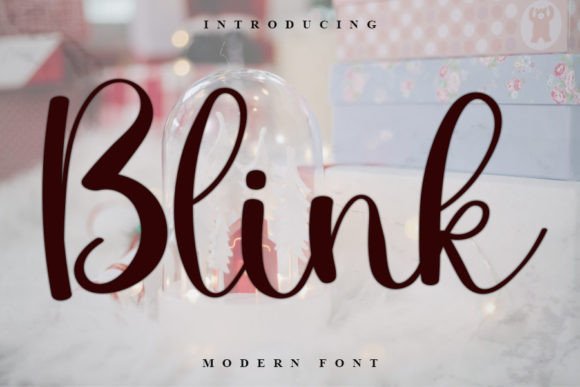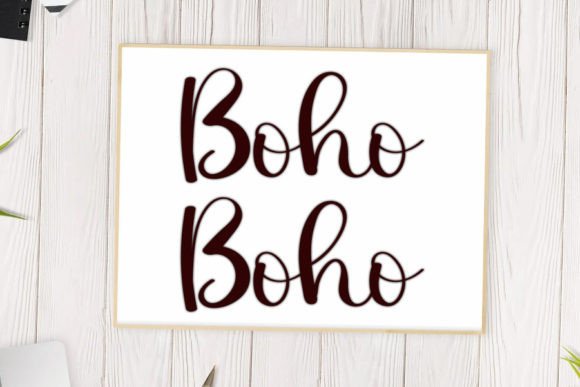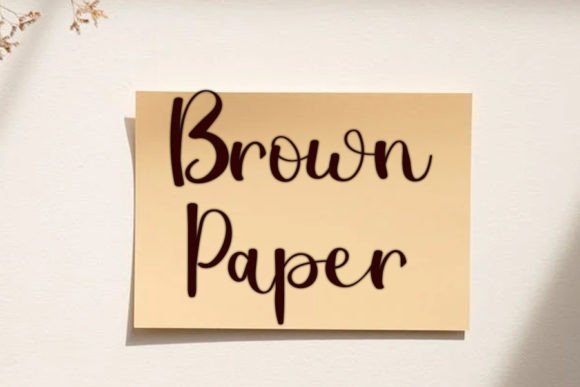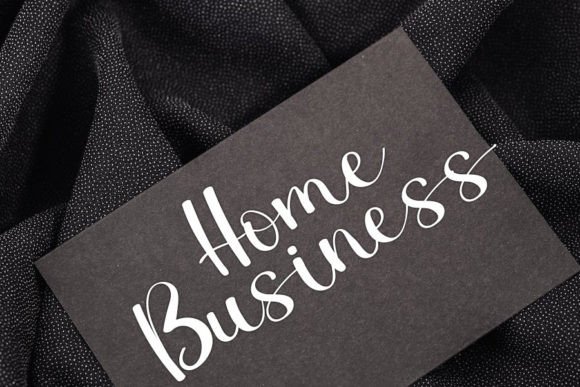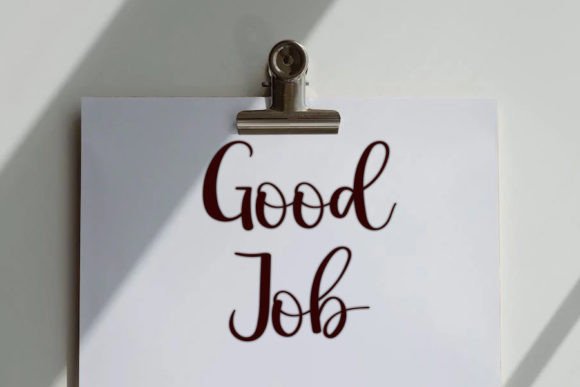
Blink Font
About Blink Font
A Charming and Elegant Handwritten Font
The Blink Font is a charming and elegant handwritten typeface that brings sophistication and warmth to any design. Its delicate strokes and graceful curves make it perfect for a variety of creative projects. Whether you’re designing wedding invitations, greeting cards, logos, or business cards, the Blink Font adds a personal touch, making your work stand out with timeless appeal.
Perfect for Wedding Invitations and Special Occasions
If you’re working on wedding invitations or any other special event stationery, the Blink Font is an excellent choice. Its graceful, handwritten design adds a personalized and elegant touch to your invitations, making them feel extra special. Whether for a wedding, anniversary, birthday, or other significant celebration, this font ensures your designs leave a memorable impression on your guests.
Ideal for Thank You Cards and Personalized Messages
The Blink Font is also perfect for creating thank you cards, greeting cards, and other personalized messages. Whether you’re expressing gratitude on Christmas, Valentine’s Day, or any other occasion, this font brings a heartfelt and sincere touch to your messages. Its unique handwritten style ensures that your cards and messages feel both personal and elegant, adding an extra layer of charm.
Great for Logos and Branding
For logos and branding materials, the Blink Font provides a distinct yet elegant handwritten design. Whether you’re working on a company logo, brand name, or product packaging, this font ensures your branding stands out with a memorable identity. Its charming and approachable style makes it perfect for businesses in industries such as fashion, events, or hospitality, where personalization and sophistication are key.
Versatile for Multiple Design Applications
The Blink Font is highly versatile, making it suitable for a wide range of design applications. Whether you’re designing posters, flyers, website headers, social media graphics, or business cards, this font enhances your work with a clean, elegant look. Its handwritten style adds a unique touch to both digital and print media, making it an excellent choice for both personal and business projects.
Elegant and Legible
Despite its elegant and artistic design, the Blink Font remains legible and easy to read. Its smooth, flowing strokes ensure that your text is clear, even when used for longer passages or smaller text sizes. Whether you’re creating headlines, captions, or full body text, this font ensures that your designs are both charming and readable, making it perfect for all types of projects.
The Blink Font is designed to be easy to use and integrates seamlessly into most design software. Whether you’re working on logos, greeting cards, social media posts, or marketing materials, this font ensures your designs are polished and professional. Its adaptability ensures it works across both large text and small text applications, making it perfect for a variety of design needs.
Add Charm and Elegance to Your Designs with Blink Font
If you’re looking for a charming, elegant handwritten font to elevate your designs, the Blink Font is the perfect choice. Whether you’re creating wedding invitations, thank you cards, logos, or greeting cards, this font brings a personal touch that adds sophistication to your projects. Create spectacular designs with the Blink Font and leave a lasting impression on your audience.